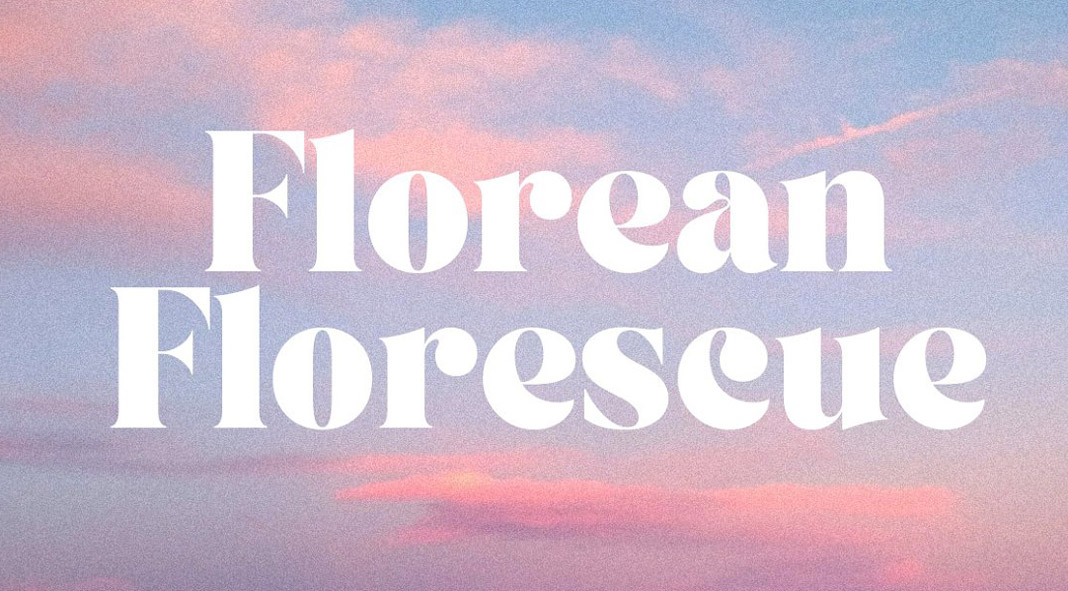
Say hello to TAN ASHFORD, a bold serif font with high contrast.
Designed and published by the team of TanType, this dominant but friendly display font is ideal to give your headlines and titles a distinctive look. The TAN ASHFORD font is a bold serif with high contrast. Designed with a nice vintage vibe, this display font will add a trendy style to your typographic work. Just click on the following link to learn more about this beautiful typeface.